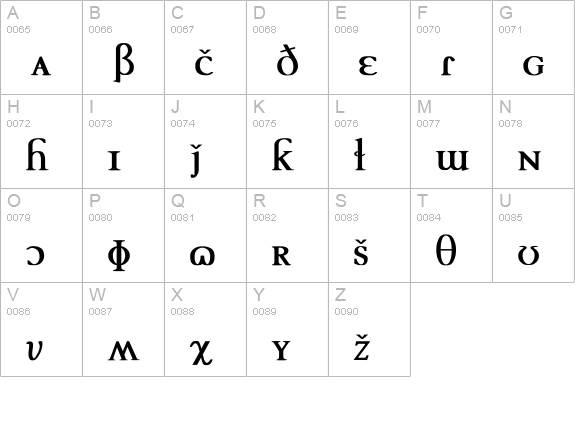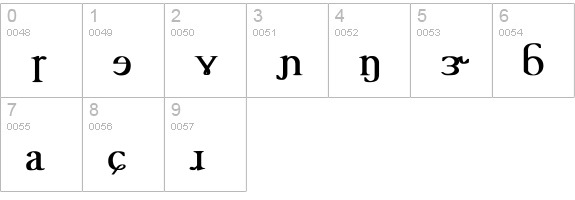
TechPhonetic Bold Font Details
TechPhonetic Bold is a strong, high-contrast variant in the TechPhonetic typeface family \xE2\x80\x94 well suited to headlines, attention-grabbing titles, and strong calls-to-action.
Introducing TechPhonetic Bold, a captivating and modern font that effortlessly captures the essence of technology and innovation. With its bold and striking letterforms, this typeface exudes confidence and sophistication, making it the perfect choice for any tech-related project. TechPhonetic Bold is meticulously crafted to ensure maximum legibility, even at small sizes, making it ideal for both print and digital applications. Its clean and streamlined design adds a touch of professionalism, making it suitable for a wide range of projects, from website headings to logo designs. But what sets TechPhonetic Bold apart is that it is available for free! Yes, you heard it right. This amazing font is freely available to download at FontsMarket.com. Now, you can elevate your designs without having to worry about any additional costs. So why wait? Head over to FontsMarket.com and grab your copy of TechPhonetic Bold today. With its sleek and modern aesthetic, this font is sure to make a lasting impression on your audience. Don't miss out on this incredible opportunity to enhance your designs with TechPhonetic Bold - the perfect fusion of technology and typography.